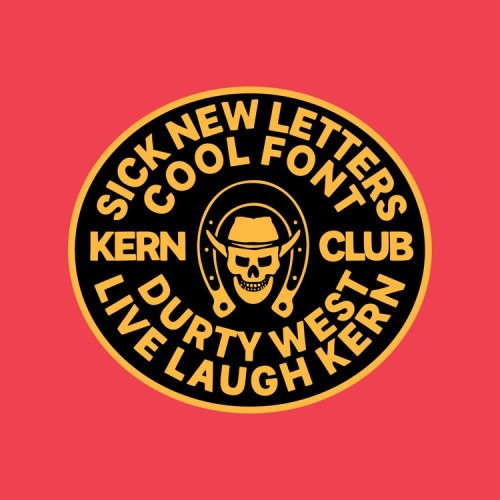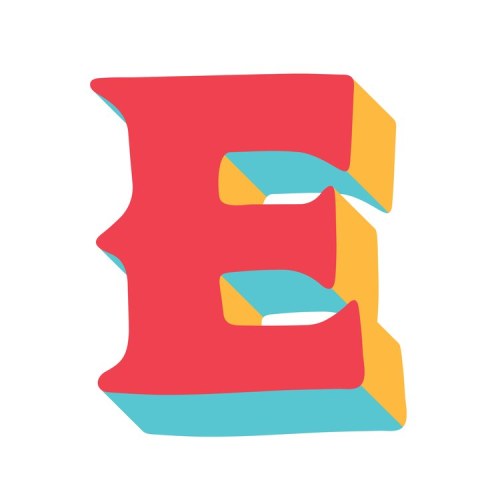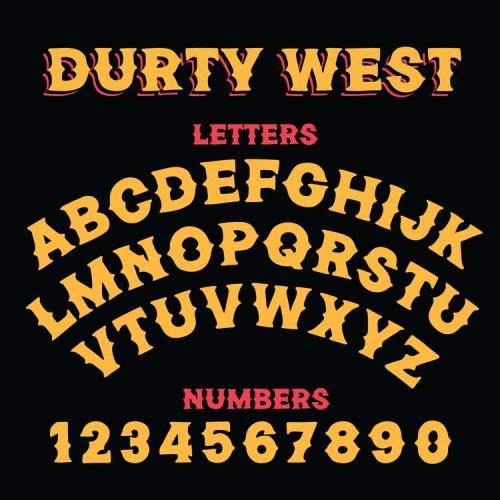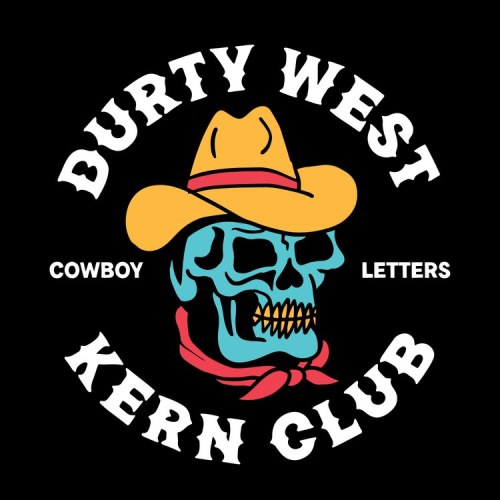
Durty West Font
Durty west is a bold and vintage display font. It has cowboy letters that Includes regular and sans versions (2 fonts). It comes in OTF file format.
Where Durty West Font works best
Durty West Font is built for size: event posters, hero headlines and billboard-style layouts.
High contrast display type like Durty West Font reads instantly in thumbnails and motion graphics.
What is Durty West Font good for?